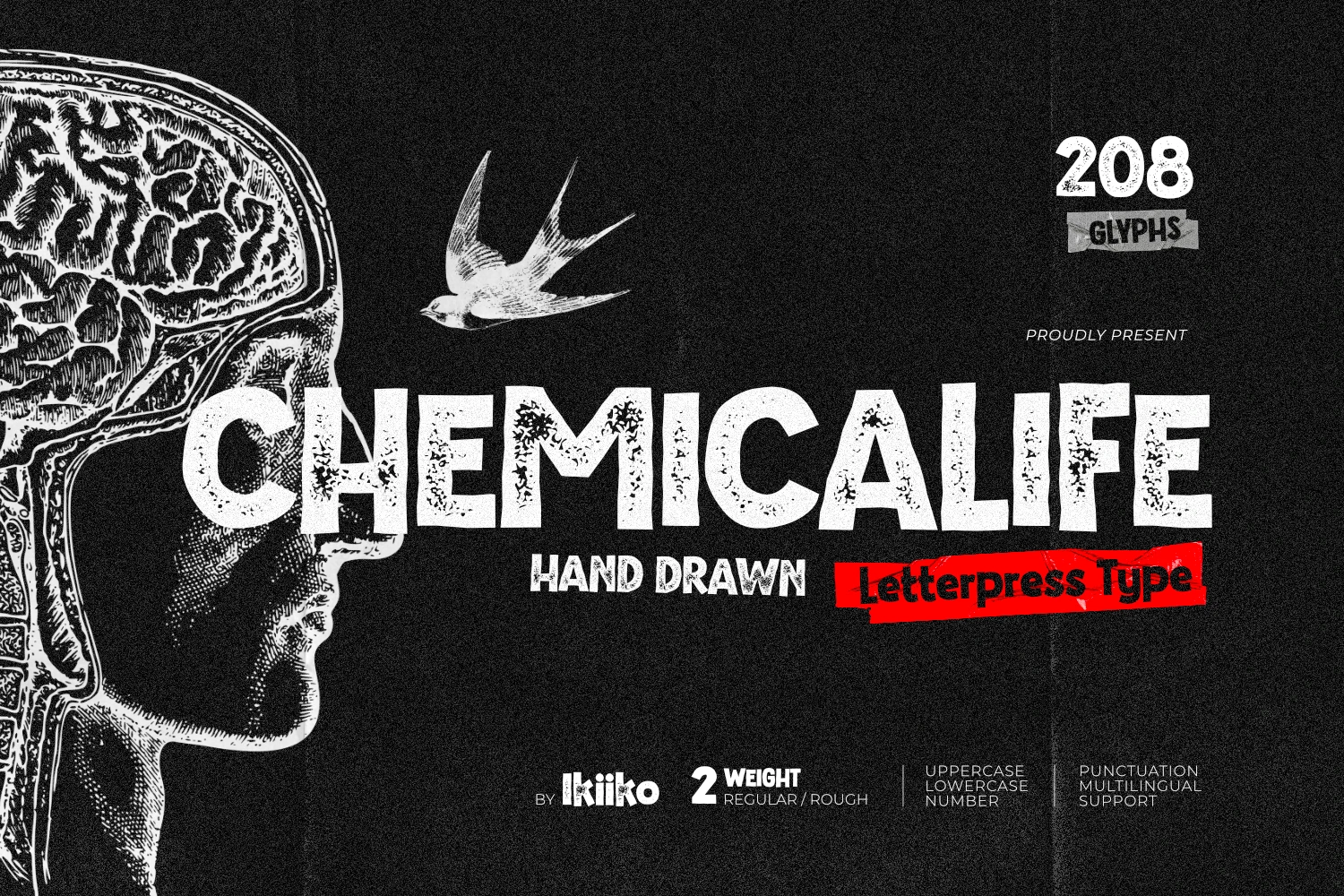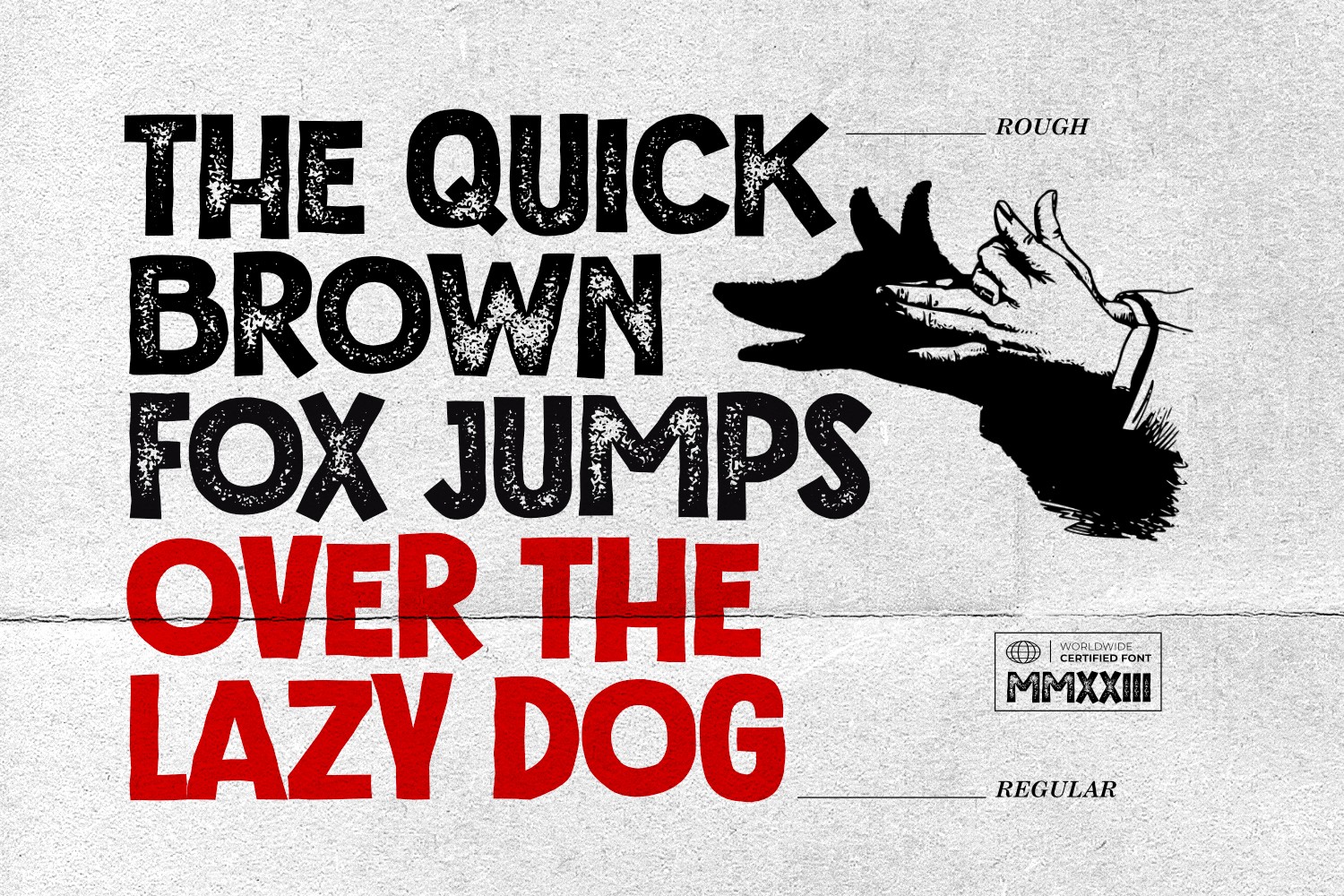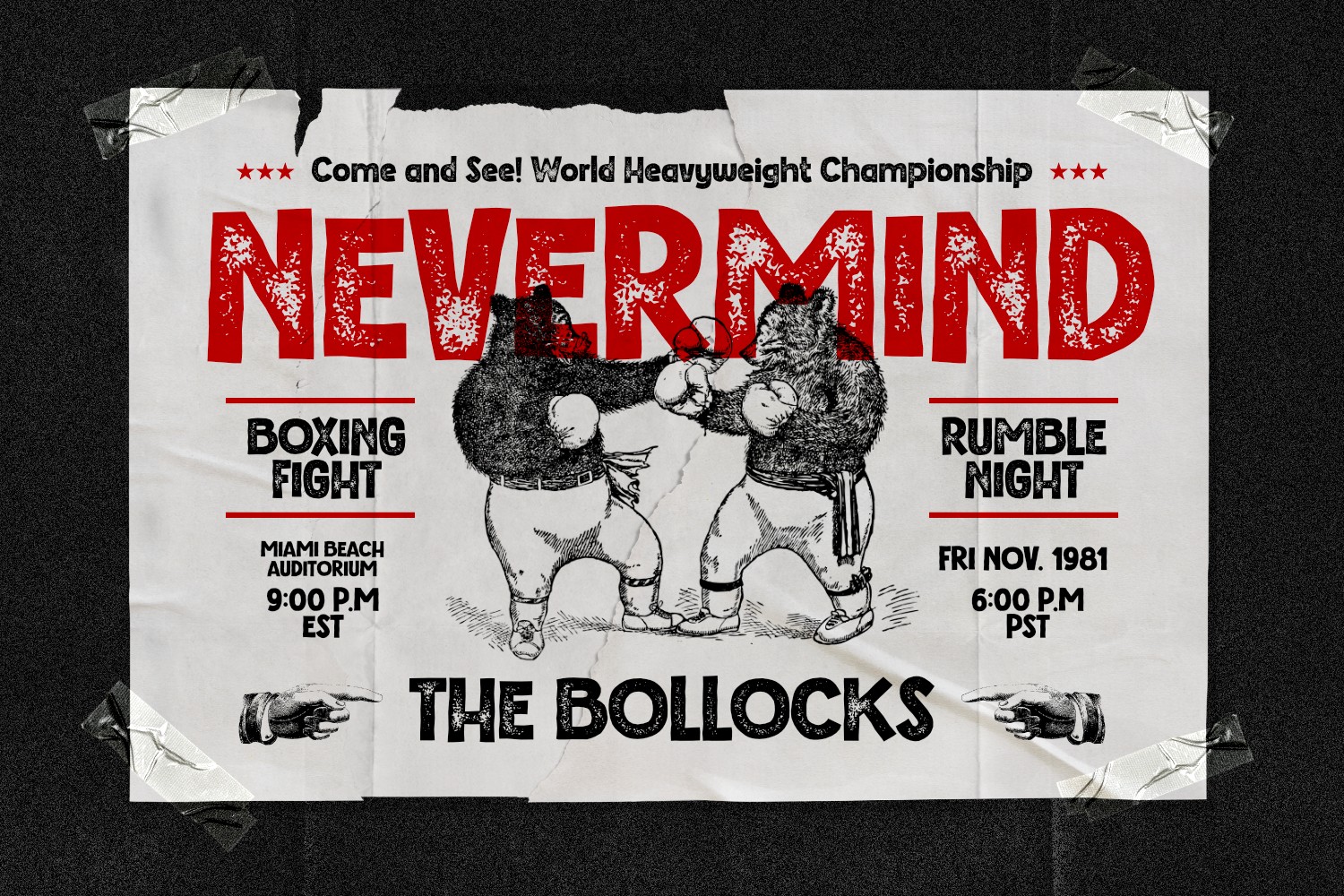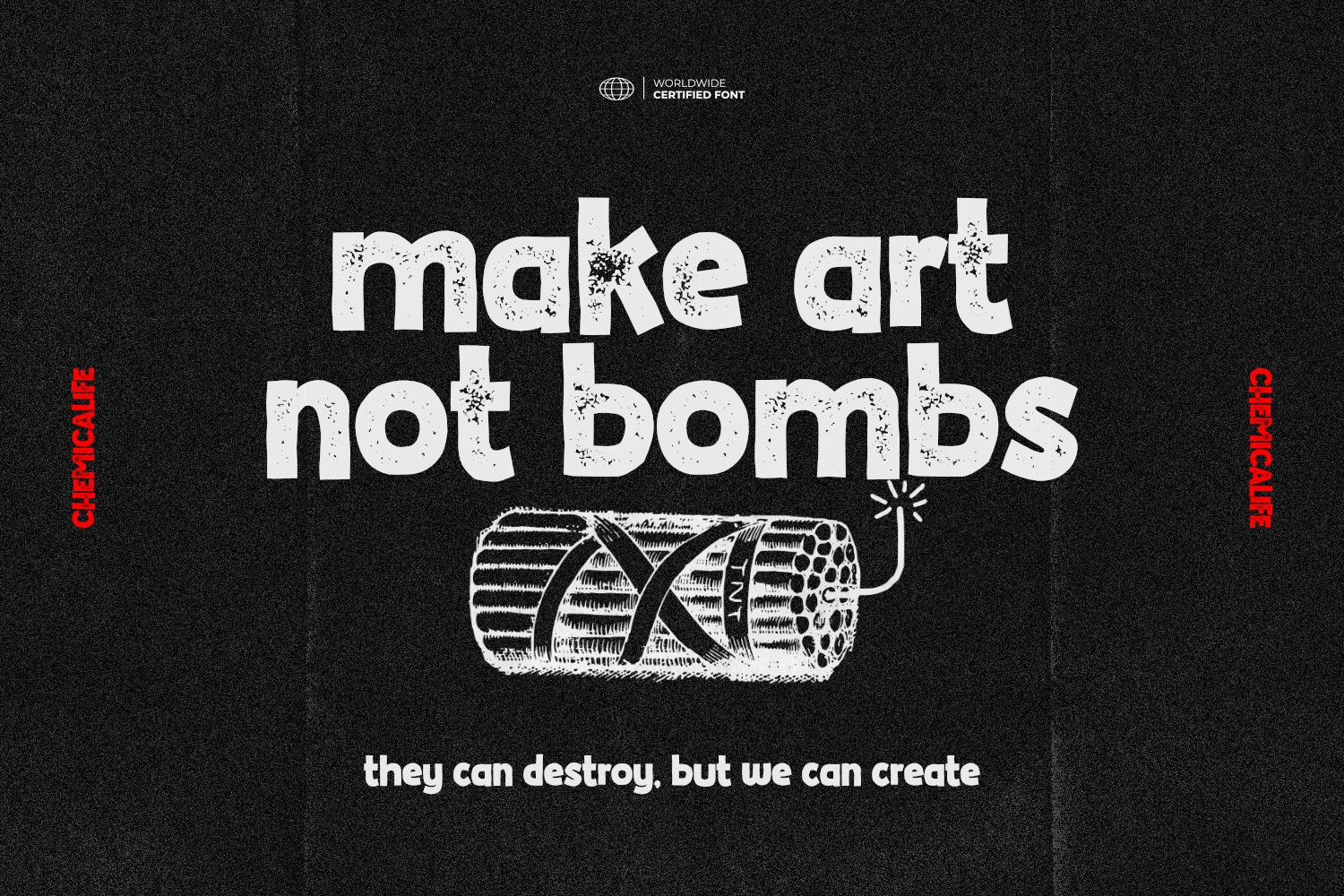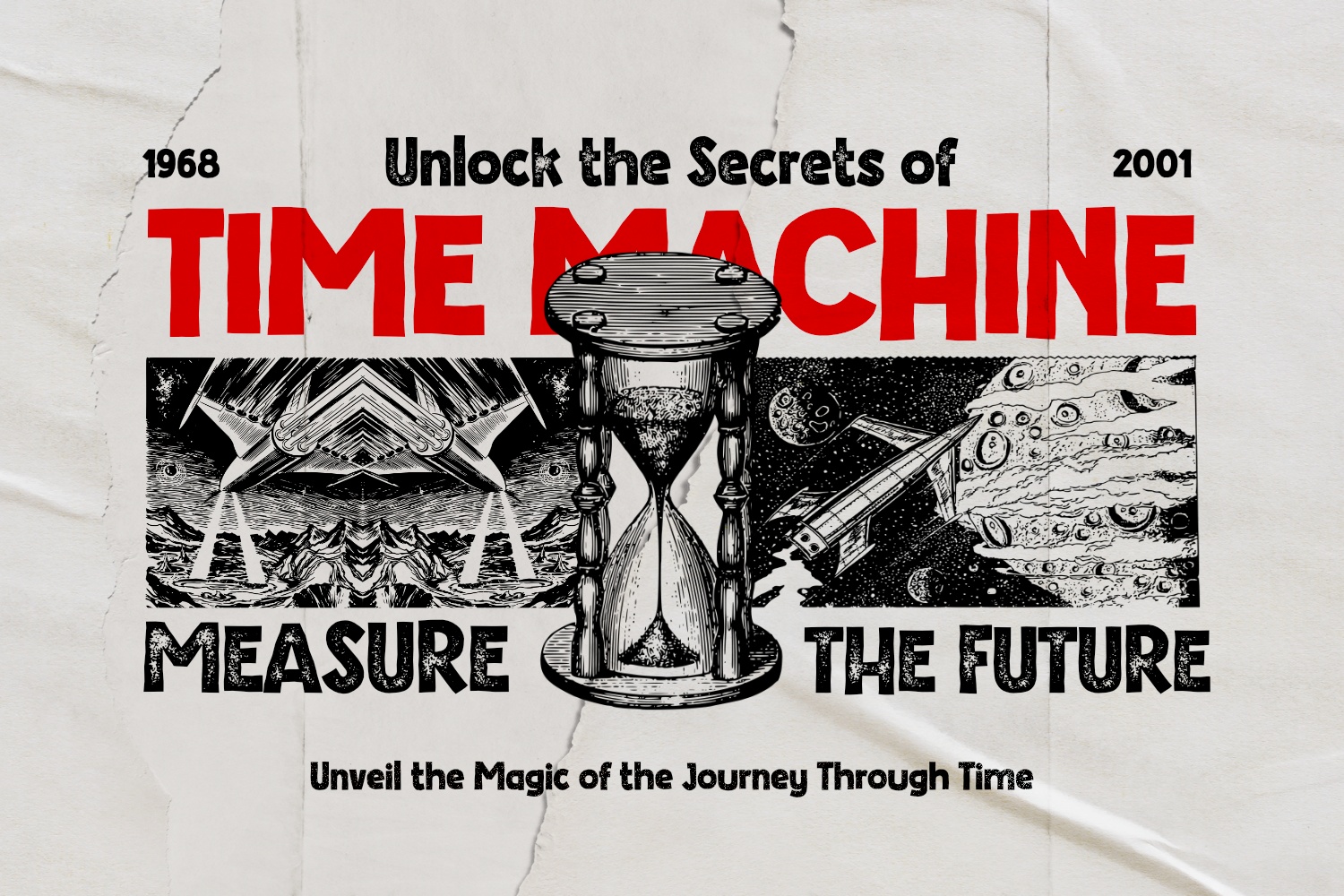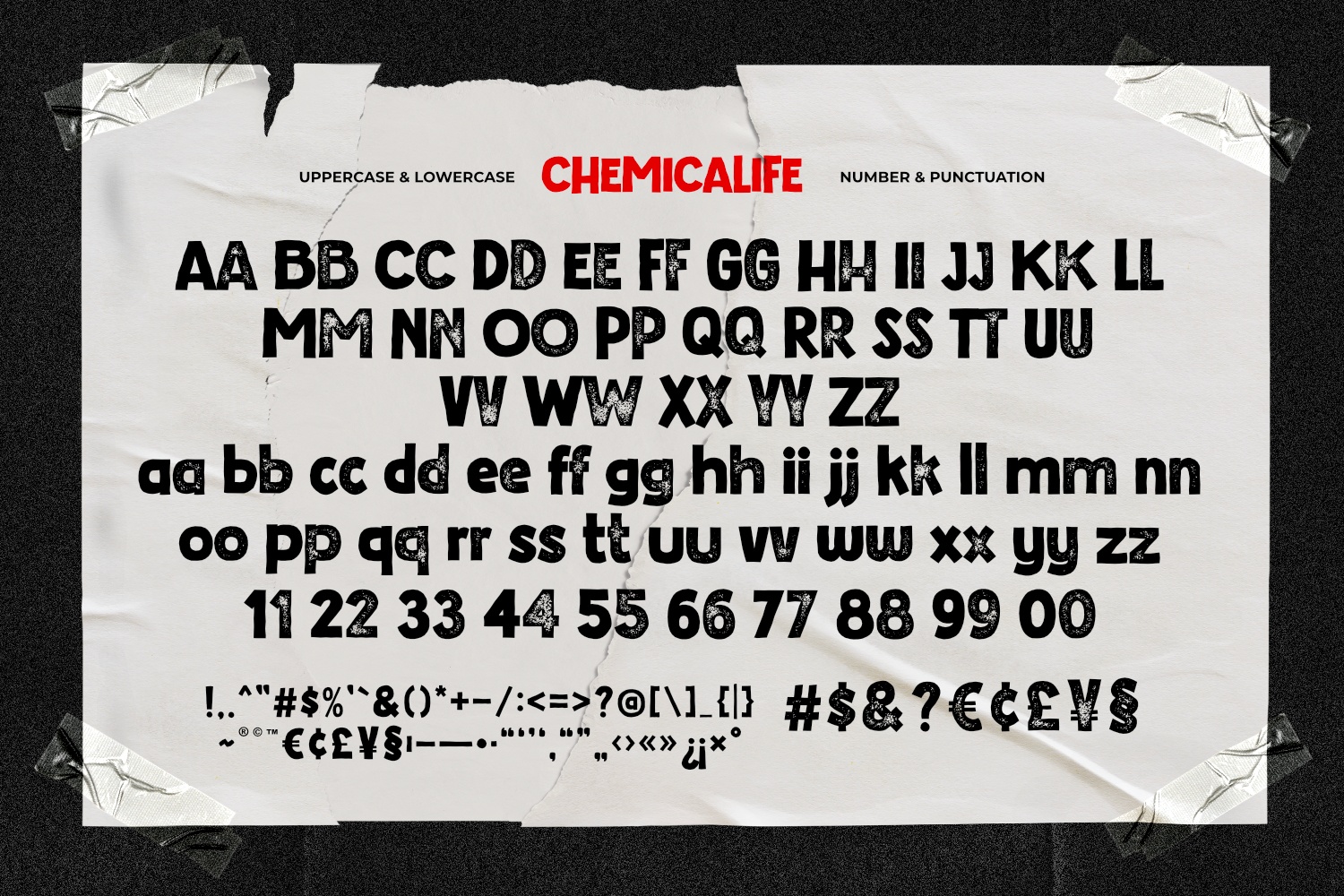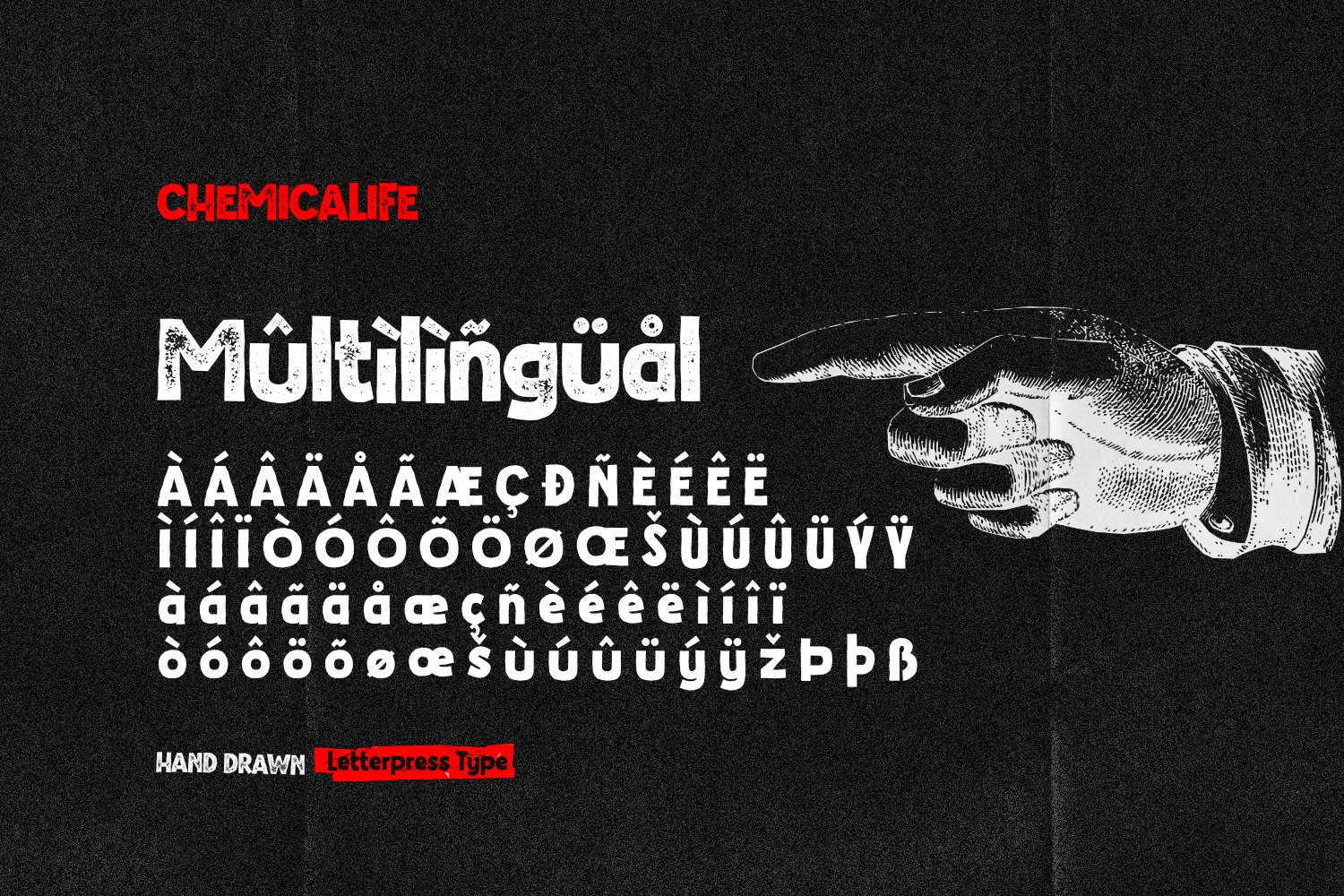
Chemicalife - Handdrawn Letterpress Font
Take advantage of "Chemicalife," a stunning hand-drawn letterpress typeface created to take your poster designs to new heights, and embrace its retro appeal and aesthetic attraction. The distinctive "Regular" and "Rough" forms of this typeface, each with its own compelling personality, provide your projects an unsurpassed degree of versatility.
Discover the world of purposeful imperfection with Chemicalife's "Rough" aesthetic. This variation celebrates the natural flaws of handcrafted artwork and is inspired by the genuine charm of vintage letterpress prints. Every word and character exudes an artistic rawness that gives your posters a sense of true craftsmanship. These imperfections and uneven edges are the telltale signs of an artist's touch.
This typeface is perfect for an vintage poster, movie title, packaging, food & beverages, magazine design, fashion brand, classic stuff, quotes, or simply as a stylish text overlay to any background image.
- 2 Weight : Regular & Rough